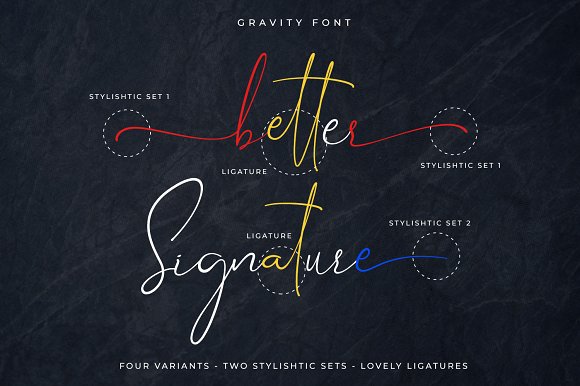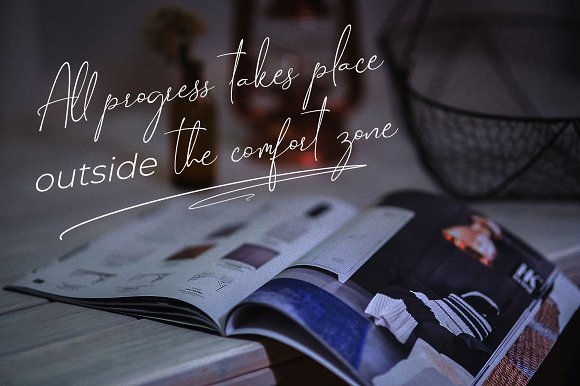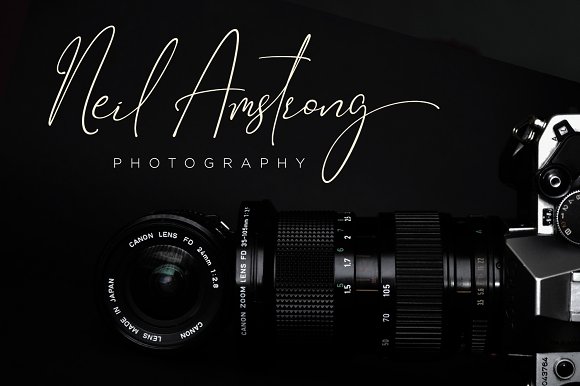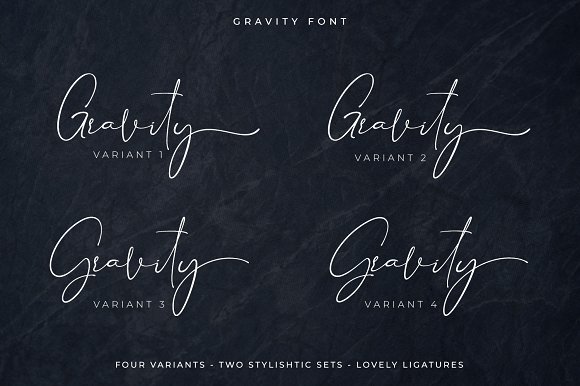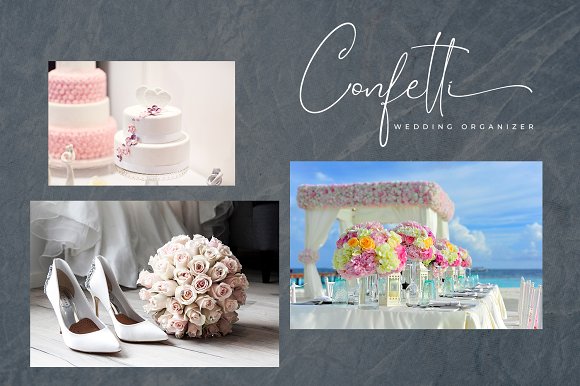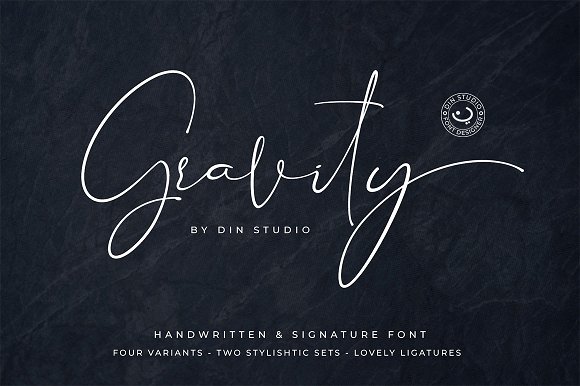
Gravity – Handwritten Font Script
Introducing the Gravity font , a luxury handwritten and signature font . With four font variants you can create signatures and handwriting that you like. The Gravity font has two stylishtic set features. one used for handwritten and one for signature . Gravity font built with uppercase, lowercase, numeral, punctuation , many ligatures, swashes and also support international character . This font is perfect for creating branding projects, signatures, quotes and weddings.